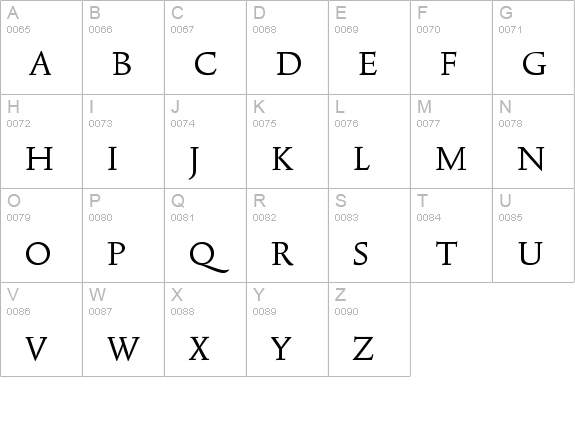
TriniteNo3-RomanWideTab font is a stunning typeface that combines elegance and versatility. With its sleek and modern design, this font is perfect for a wide range of projects, including branding, advertising, and web design. Featuring clean lines and wide letterforms, TriniteNo3-RomanWideTab font exudes a sense of professionalism and sophistication. Its bold and commanding presence makes it ideal for headlines and titles, while its readability ensures legibility even at smaller sizes. One of the standout features of TriniteNo3-RomanWideTab font is its ability to convey both strength and style. The carefully crafted letterforms create a visual impact that captures attention and leaves a lasting impression. The font's wide proportions give it a unique and distinctive look, setting it apart from other typefaces. And the best part? TriniteNo3-RomanWideTab font is available for free! That's right, you can download this exceptional font at FontsMarket.com without spending a penny. This means that you can enhance your designs with a high-quality, professionally designed font without breaking the bank. Whether you're a graphic designer, a website developer, or simply someone looking to add a touch of elegance to your personal projects, TriniteNo3-RomanWideTab font is the perfect choice. Its versatility and eye-catching design make it a must-have for any creative endeavor. So don't miss out on this amazing opportunity to download TriniteNo3-RomanWideTab font for free at FontsMarket.com. Start creating stunning designs with this exceptional typeface and elevate your projects to new heights.